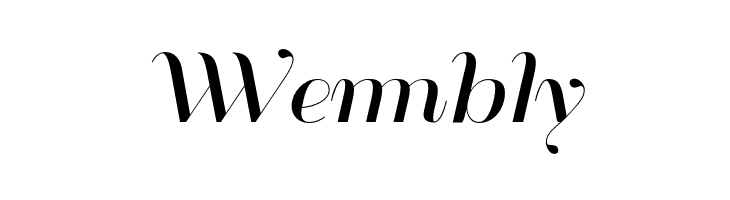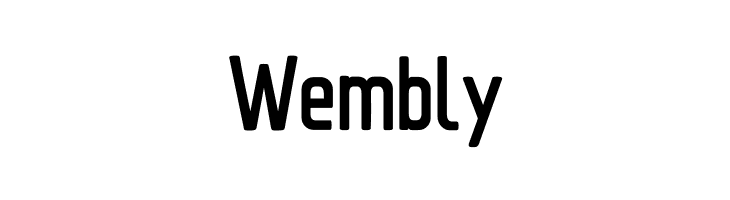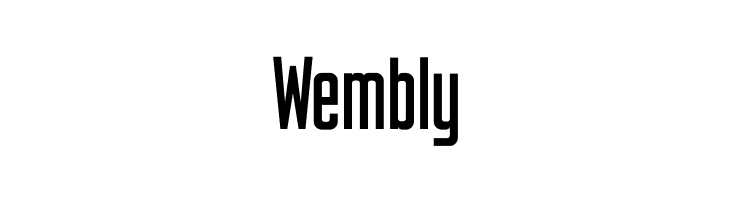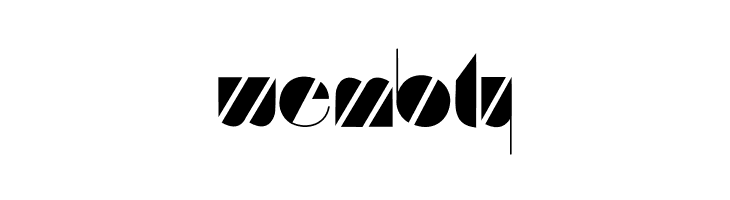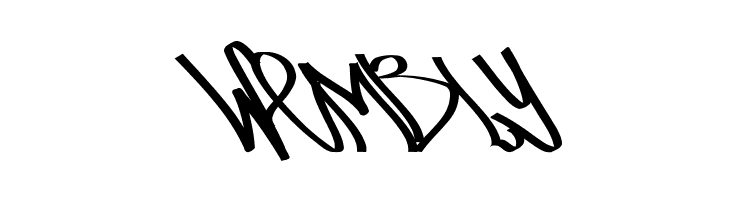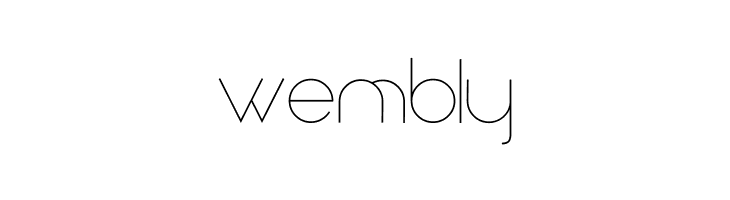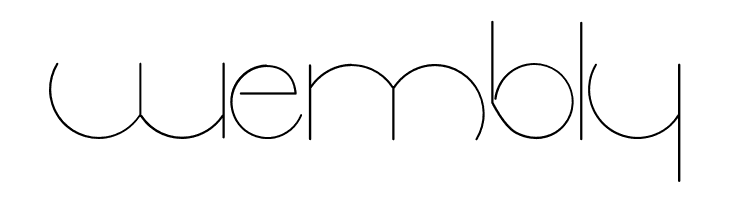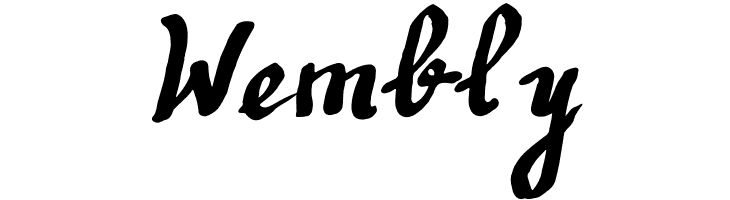
• ModesteHenri Demo
• Saarland
• Sturkopf Grotesk
• Metropolis
A sleek, geometric font with a modern, art deco-inspired design.
• Metropolis
A sleek, geometric font with elongated characters and high contrast.
• Iniciatica
An artistic and decorative font with elaborate, angular designs.
• Artistica
A bold, geometric font with artistic flair and unique character shapes.
• Artistica
A bold, geometric font with high contrast and unique character shapes.
• arsone
A bold, graffiti-inspired font with dynamic and expressive characters.
• Infinita
A sleek, modern font with thin lines and geometric structure.
• Infinita
A sleek, modern font with thin, uniform lines and a minimalist aesthetic.
• radiance
A sleek, modern font with thin, geometric lines and minimalistic design.
• radiance
A sleek, minimalist font with thin, geometric lines and a modern aesthetic.
• Humana
A dynamic, cursive script font with bold, sweeping strokes and elegant curves.
• Lavande
An artistic and decorative font with elegant, elongated letterforms and dynamic contrast.
• Cosmonautica
A futuristic and sleek font with thin, elongated letterforms and geometric shapes.
• transient1
An elegant, flowing script font with thin, delicate strokes.
• transient1
A delicate, elegant script font with flowing, connected letters.
• transient2
A dynamic and flowing script font with elegant, italicized letterforms.
• transient2
A dynamic and flowing script font with elegant, cursive letterforms.
• Isabel
A modern, geometric font with an Art Deco influence, featuring thin, elongated letterforms.
• GARBAGE MEDIUM